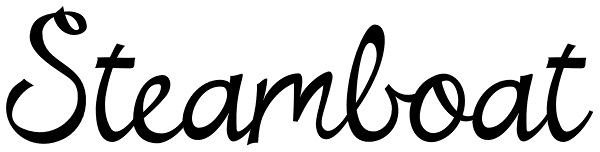
Steamboat
Steamboat is historical yet fun. Like a sign painted on the side of a brick building, Steamboat has a vintage vibe, but is eager to put a playful, handmade twist on the freshest new au courant creation. Steamboat’s ribbony script holds a touch of...